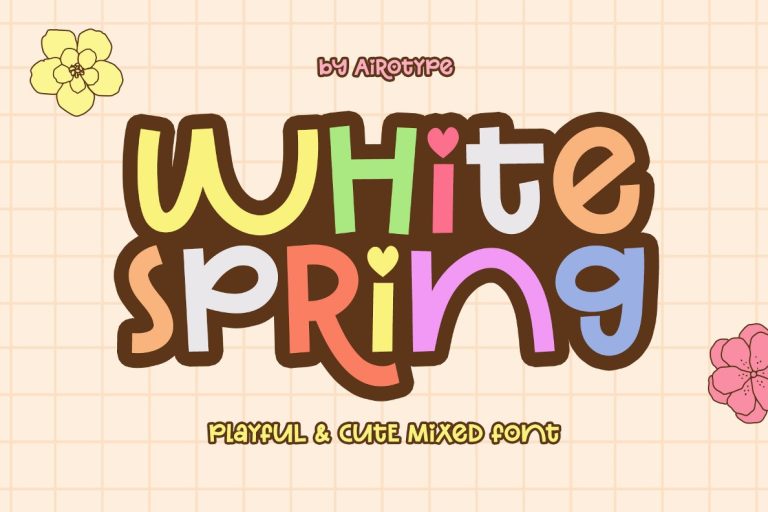
White Spring
White Spring is cute and playful handwritten font. It radiates cheer, cuteness, and fun.
This font is mixed font. You can mix and match lowercase and uppercase to add the cuteness vibes into the design.
White Spring is pretty font for design with cute and playful vibes, such as school design, holiday, birthday invitation, summer design, holiday, t-shirt design, crafting, sticker, sublimation, and many more.